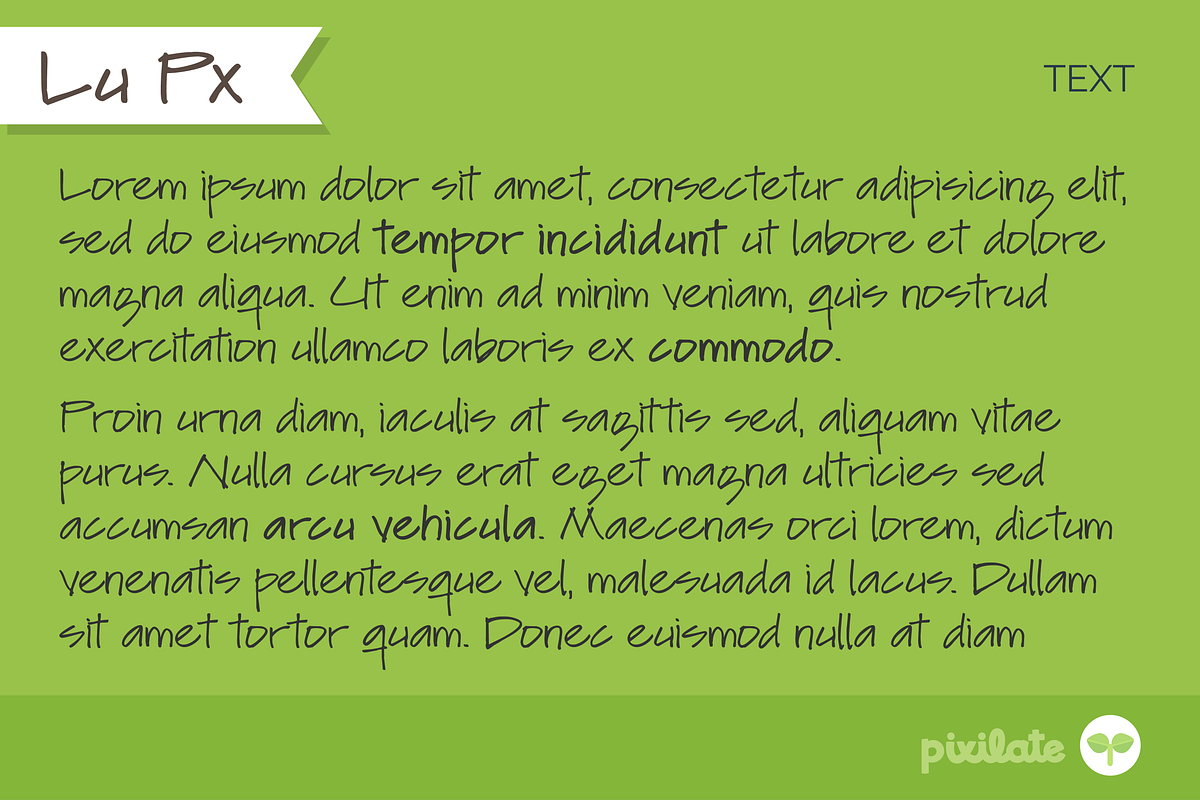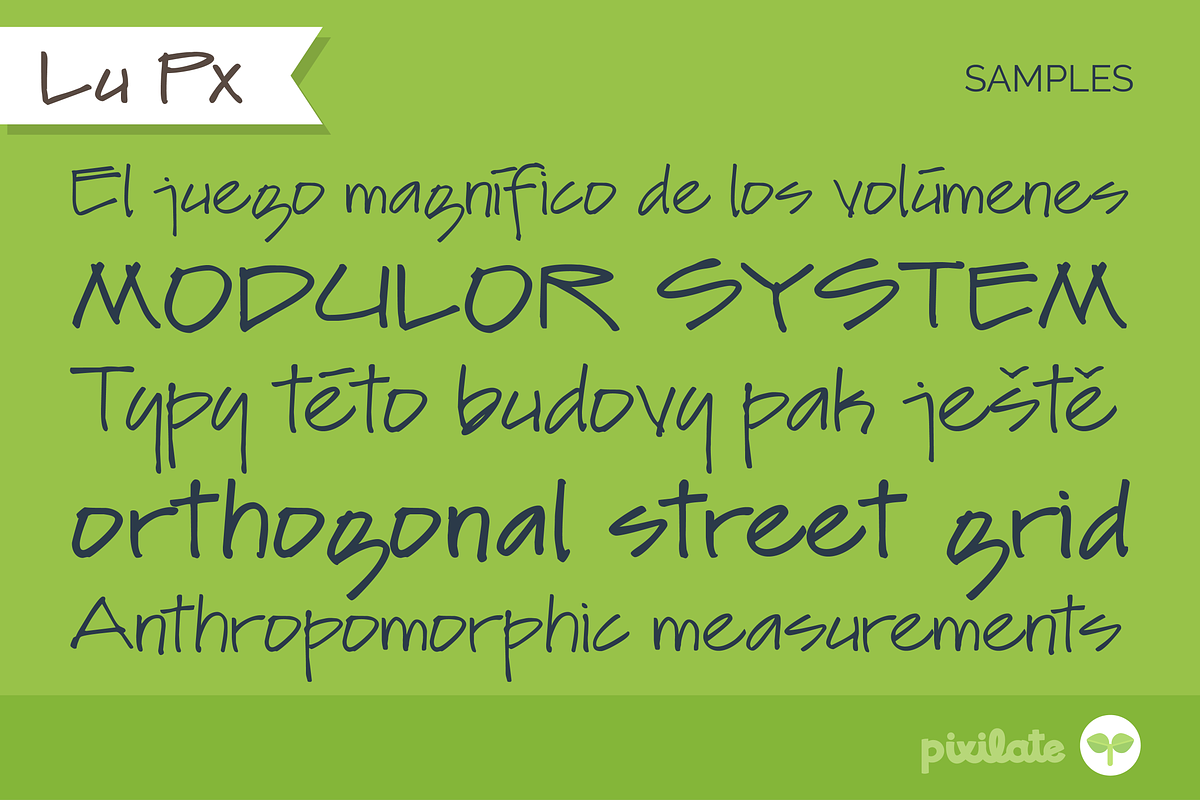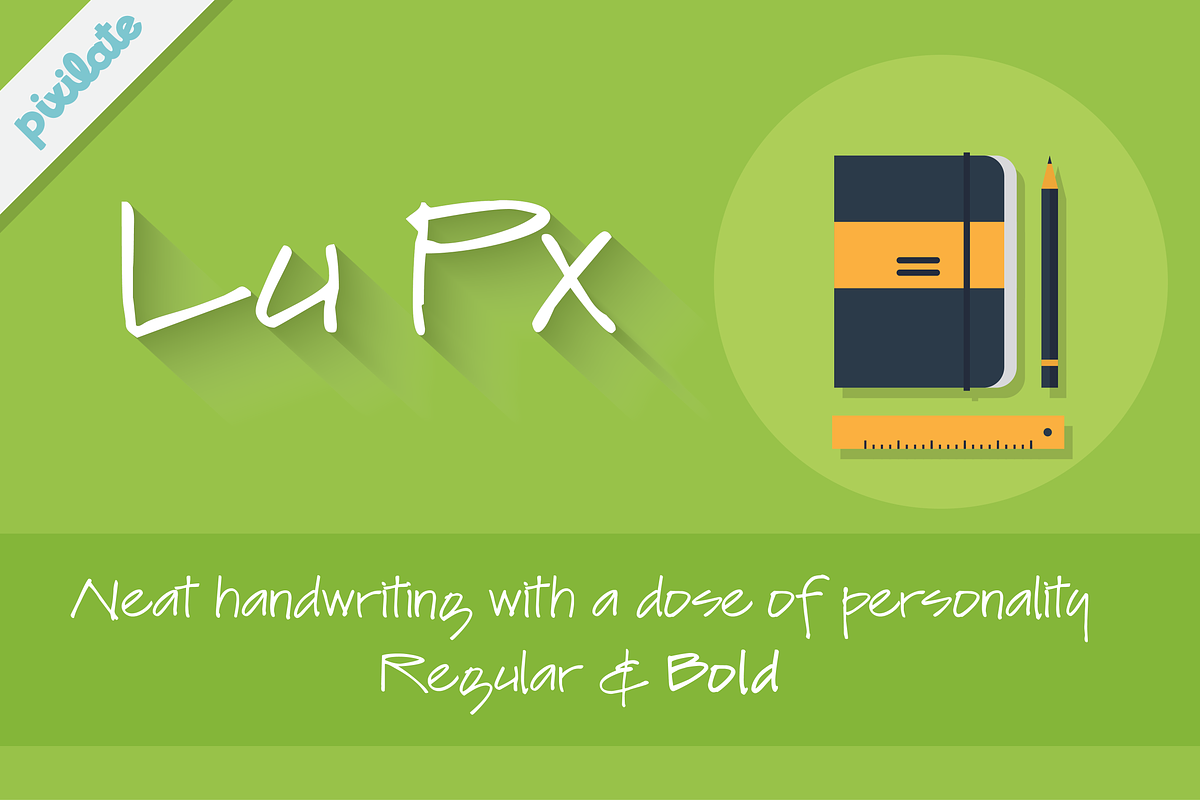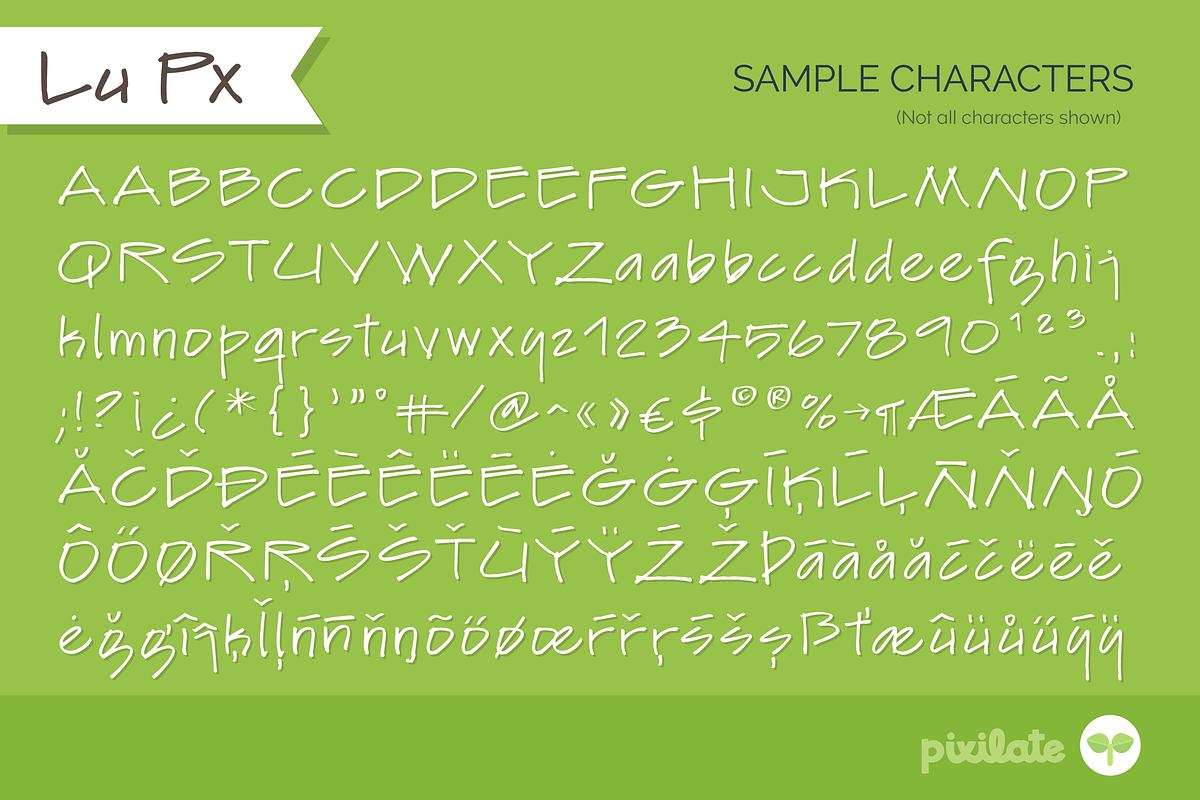
Lu Px natural handwriting font
Lu Px natural handwriting font by Letradora is a font selected for branding, posters, packaging, typography.
Why Lu Px natural handwriting font is worth a look
Lu Px natural handwriting font by Letradora fits naturally into Branding, posters, packaging, typography.